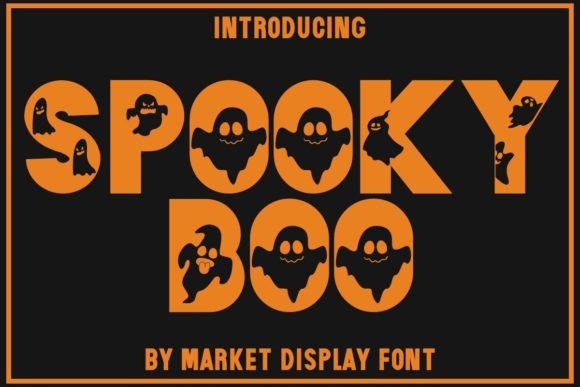
Journey to the realm of the eerie and captivating with Spooky Boo Font, a decorative masterpiece crafted to send shivers down your spine. As the brainchild of Phongsakon Phonkhammak, this font is not merely a collection of letters; it's a gateway to a world of spine-tingling designs.
Picture this: a haunted house looming in the moonlight, its windows glowing with an unsettling aura. The creaking of floorboards underfoot, the rustle of leaves in the wind, and the faint whisper of ghostly apparitions. Spooky Boo Font captures the essence of this eerie ambiance, bringing your Halloween-themed designs to life.
Each character in Spooky Boo Font is a work of art, meticulously designed to evoke a sense of mystery and intrigue. The elegantly curved lines intertwine like ghostly apparitions, creating a haunting visual experience. Whether you're conjuring invitations for a Halloween party, crafting posters for a haunted house, or simply adding a touch of spook to your social media posts, Spooky Boo Font is your ultimate companion.
Unleash your creativity and let Spooky Boo Font be your guide as you navigate the realm of the supernatural. From bone-chilling book covers to spine-tingling website designs, this font will add an unforgettable touch to all your projects. Immerse yourself in the world of ghosts, ghouls, and goblins, and let Spooky Boo Font be your creative accomplice.